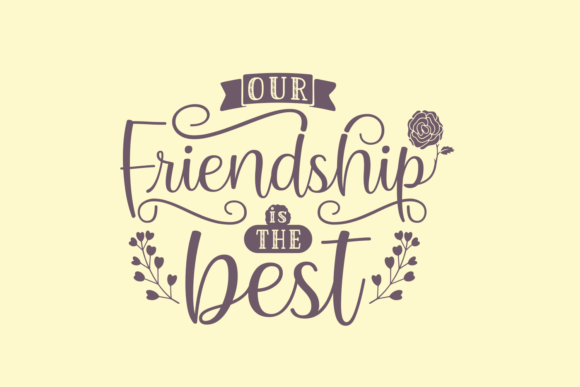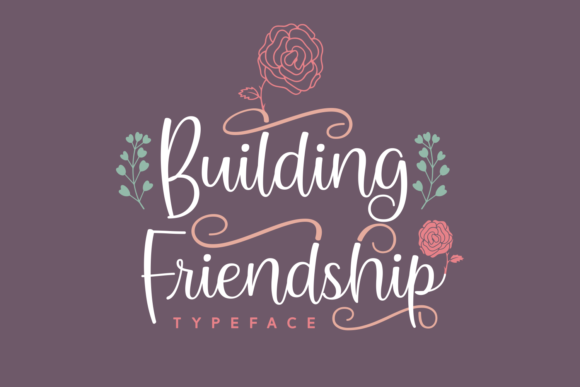
The Power of Typography: A Deep Dive into Building Friendship Font
I’ll never forget the time I was working on a branding project for a new coffee shop. I had spent hours perfecting the logo design, but something felt off. It wasn’t until I experimented with different fonts that the design truly came alive. The right typography can make or break a design, and that’s where the Building Friendship font comes in.
A Personal Review of Building Friendship Font
I’ve had the pleasure of working with Building Friendship font on several projects, and I’m excited to share my honest review.
- ✅ Elegant and flowing handwritten style that adds a touch of sophistication to any design
- ✅ Beautifully balanced characters that make it perfect for a variety of applications, from logos to quotes
- ⚠️ Some users may find the font a bit too ornate for certain designs, such as minimalist or modern projects
- ⚠️ Limited availability of certain glyphs or special characters, which may require additional design workarounds
One of the standout features of Building Friendship font is its OpenType features and glyphs. These allow you to add an extra layer of creativity to your design, from stylistic alternates to swashes and ligatures.
| Feature | Description |
| Stylistic Alternates | Offers alternative characters for a more customized look |
| Swashes | Adds a touch of elegance with decorative swashes |
| Ligatures | Combines characters for a more beautiful and flowing look |
The Story Behind Building Friendship Font
Building Friendship font was designed with the goal of creating a beautiful, elegant handwritten font that would add a touch of sophistication to any design. The designer, inspired by the beauty of handwritten typography, spent countless hours perfecting the font to ensure that it was both elegant and legible.
| Author | Situjuh |
Q: What is Building Friendship font?
A: Building Friendship font is a beautiful, elegant handwritten font that’s perfect for designs that require a touch of sophistication.
A: Building Friendship font is highly versatile and can be used for a variety of applications, from logos and stationery to book covers and magazines.